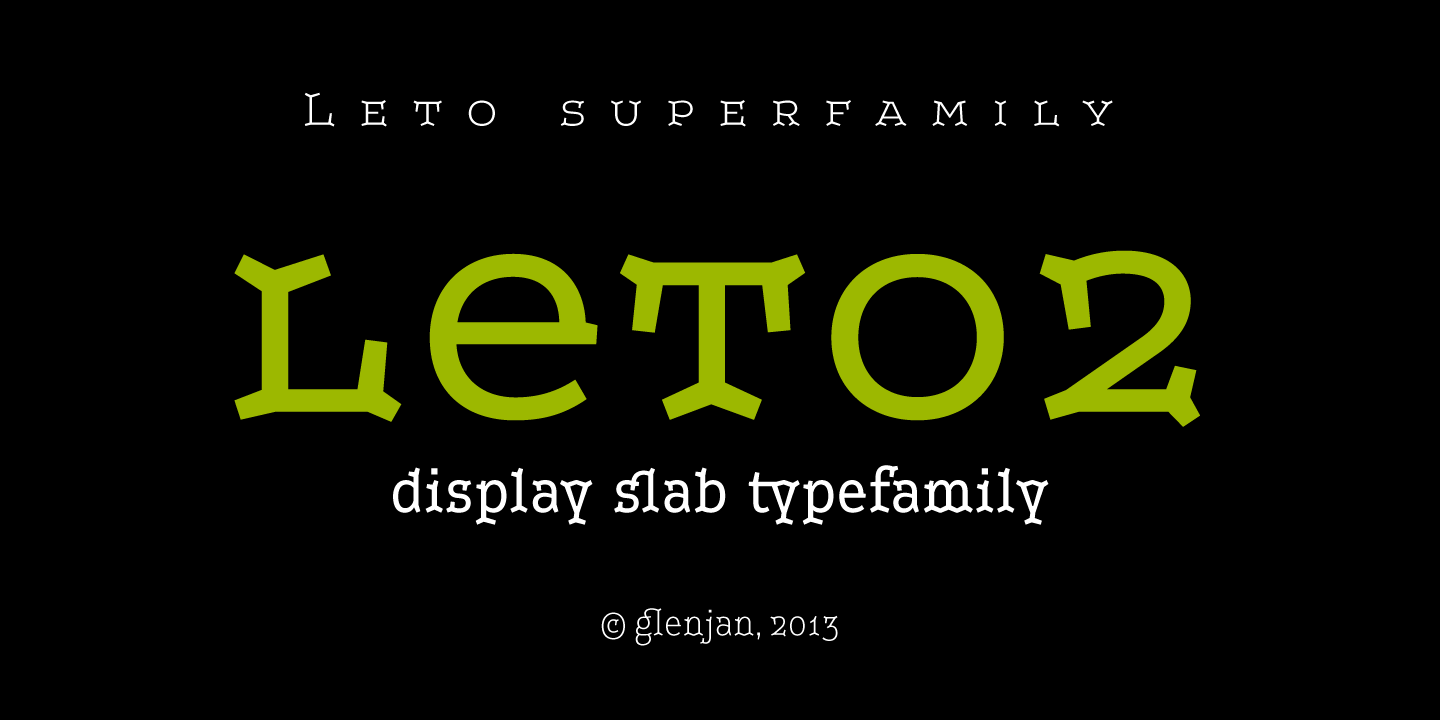
Leto Two Font Free Download delivers contemporary typography that combines modern simplicity with sophisticated functionality for versatile design applications. This commercial font requires purchase for business use, but you can download it for free for testing purposes to evaluate its distinctive clean characteristics in your creative projects.
Leto Two Font excels across diverse design applications including modern corporate branding, minimalist web interfaces, contemporary editorial design, tech company communications, clean product packaging, professional presentations, digital platform design, and sophisticated marketing materials. Its clean character makes it particularly effective for projects requiring modern clarity while maintaining professional sophistication, ensuring your designs convey contemporary excellence and reliable communication across both digital platforms and premium print materials.
What makes Leto Two Font truly exciting is its innovative approach to typography that perfectly balances contemporary minimalism with maximum readability through carefully refined letterforms. The font features precisely crafted characters that incorporate clean geometric elements and optimized proportions that create striking modern impact while preserving superior communication effectiveness. Its distinctive character construction combines minimalist philosophy with functional excellence, creating text that feels both stylishly current and professionally dependable. The font's optimized spacing and harmonious character relationships ensure exceptional performance across various modern applications while maintaining the characteristic clarity that defines its contemporary personality.
Leto Two Font presents a comprehensive type family designed to support demanding modern and professional design requirements. The family typically includes thin, light, regular, medium, bold, and black weights, complemented by matching italic styles that provide complete typographic flexibility for sophisticated contemporary hierarchies. Advanced versions often feature extended character sets with international language support, modern symbols, and specialized glyphs essential for global communications and digital applications.
The Leto Two Font Free Download represents exceptional value for designers working on contemporary and professional projects across multiple industries. Whether developing modern brand identity, creating digital interface communications, designing clean editorial materials, or producing corporate content, this font delivers consistent excellence and memorable modern appeal. Its contemporary characteristics make it particularly effective for industries including technology, modern services, digital media, and professional consulting sectors seeking to communicate innovation and contemporary reliability.
For optimal results, Leto Two Font combines excellently with minimalist design elements and contemporary color schemes that complement its modern character. Its clean presence dominates headline applications while maintaining exceptional legibility in extended reading contexts. The font's contemporary sophistication and modern reliability make it an invaluable resource for creating professional communications that resonate with audiences expecting clarity and contemporary design excellence.